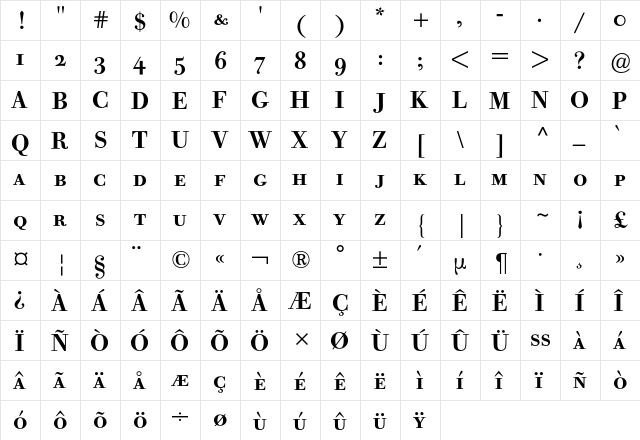
Bodoni Old Face Expert BQ Regular Font Preview
Bodoni Old Face Expert BQ Regular
Bodoni Old Face Expert BQ Regular Font Details
Design Context for Bodoni Old Face Expert BQ Typeface
Bodoni Old Face Expert BQ takes a measured approach to typography — its balanced proportions and neutral character make it a reliable workhorse for both digital and print work.
Pro Tip: Use Bodoni Old Face Expert BQ in both headline and body roles to test its range before committing to a single application.